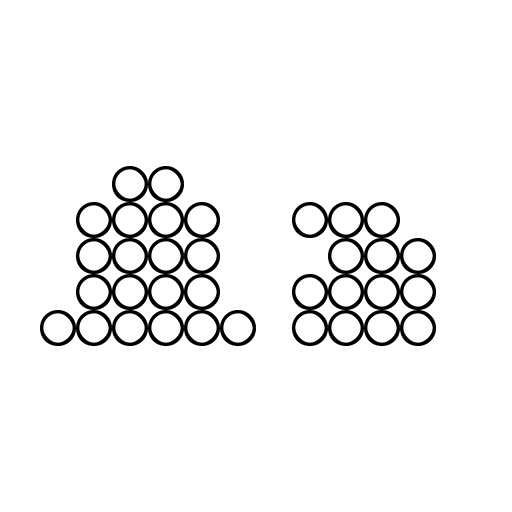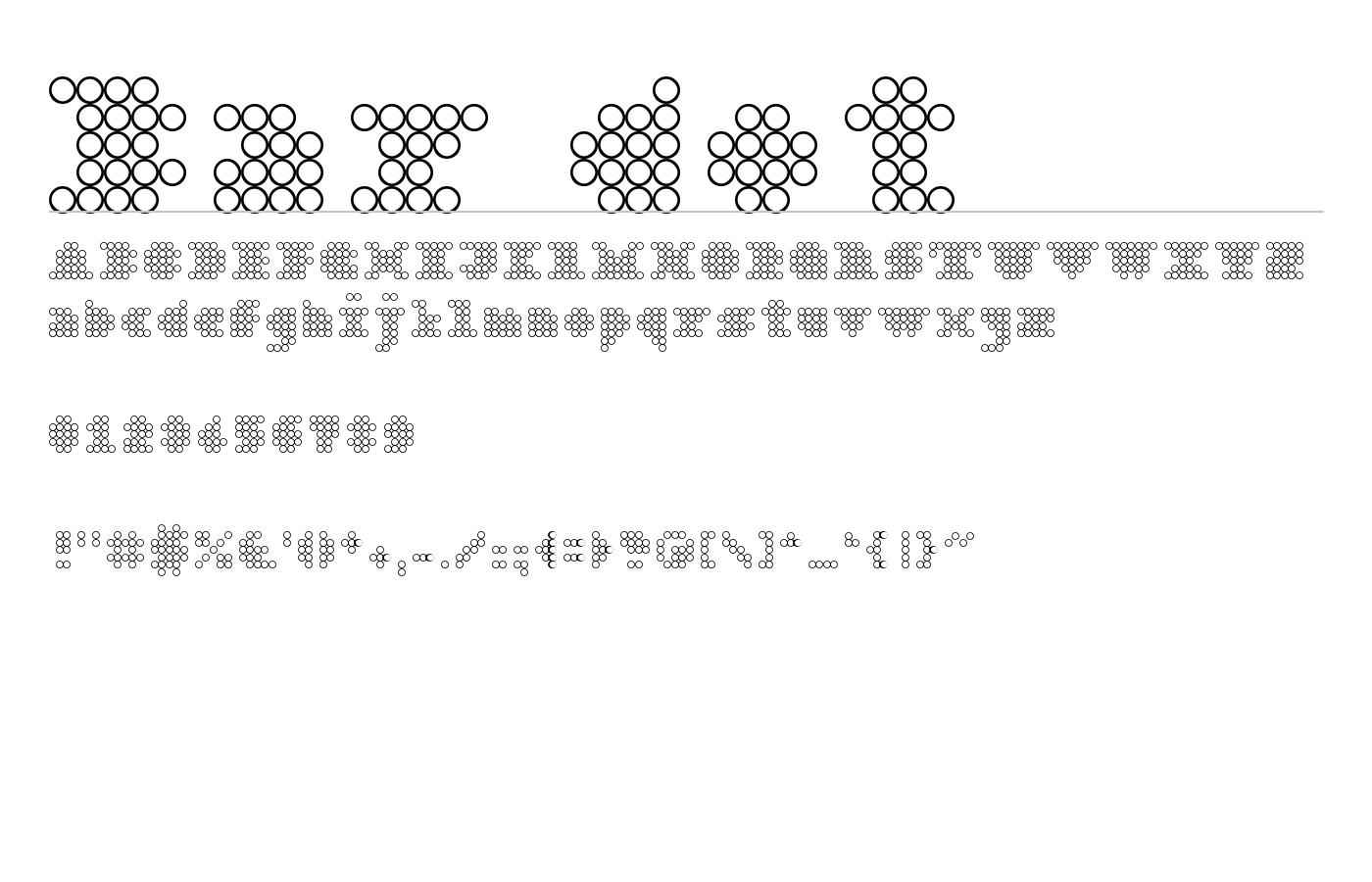
Bar dot Font is a playful and unique display typeface constructed entirely from evenly spaced circular dots forming each letter and symbol. Its geometric, minimalist style and consistent stroke width make it ideal for modern, creative projects that need a distinctive, eye-catching look. Best suited for logos, posters, and decorative headlines, this font brings a tech-inspired, digital feel with a friendly, approachable personality.
Bar dot Font
About Bar dot Font
| Font family | Bar dot Font |
| Designer | João Paulo Faraco |